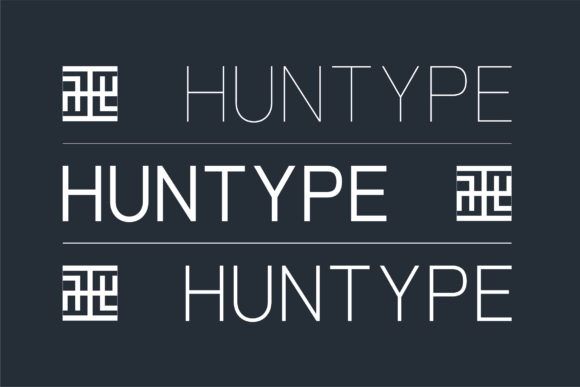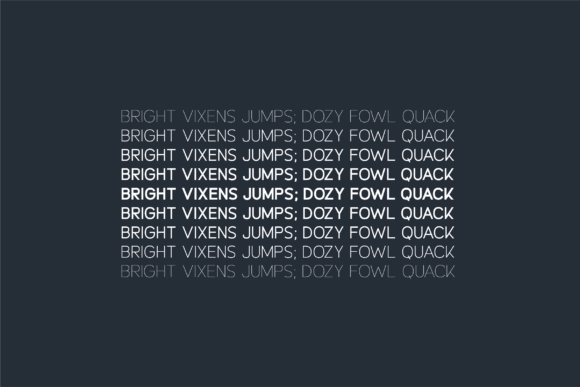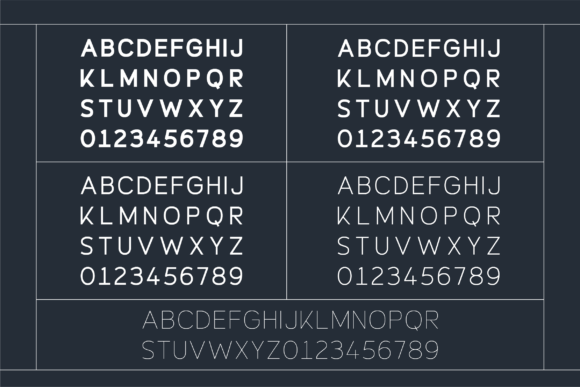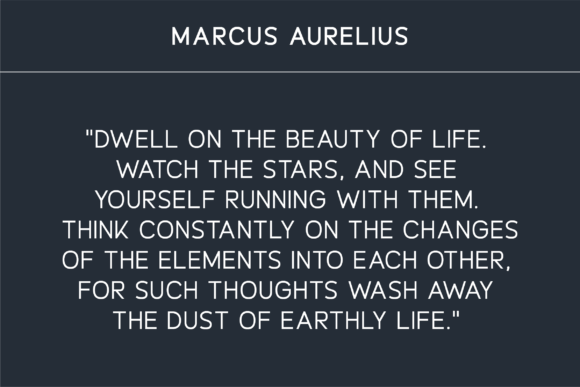
Introducing Deculate: The Ultimate Font Family for Elegance and Versatility
In the world of typography, a font can make all the difference in the success of a design project. It’s not just about conveying a message; it’s about doing so with style, sophistication, and impact. This is where Deculate comes into play—a meticulously crafted font family that epitomizes elegance, modernity, and versatility. With its five distinct weights—thin, light, regular, bold, and black—Deculate offers a wide range of creative possibilities, making it the perfect choice for designers and content creators.
A Font Family of Distinction
Deculate is more than just a font; it’s a tool that can elevate your design to new heights. Its design is characterized by a seamless blend of sophistication and contemporary style, ensuring that your projects will shine with distinction. Whether you’re aiming for a subtle and delicate touch or a bold and impactful statement, Deculate provides the flexibility to achieve your desired aesthetic. This versatility is invaluable for designers who need a font that can adapt to various design requirements, from elegant branding and editorial design to dynamic digital content.
Five Weights for Endless Possibilities
One of the standout features of Deculate is its comprehensive range of weights. The font family includes five distinct styles:
- Thin: Ideal for creating a subtle, delicate look. Perfect for fine print, captions, or when you want to add a touch of elegance without overpowering your content.
- Light: A step up from thin, offering a slightly bolder appearance while still maintaining a refined and understated vibe.
- Regular: The foundation of the Deculate family, providing a balanced and versatile option for everyday use. This weight is great for body text, headings, and where you need clarity and readability.
- Bold: When you need to make a statement, the bold weight of Deculate steps up. It’s strong, yet elegant, making it perfect for headings, titles, and where you want to draw attention.
- Black: The heaviest weight in the Deculate family, ideal for making a significant impact. Use it for dramatic headings, posters, or any design where you want to ensure your message stands out.
Elegance Meets Modernity
Deculate’s design strikes a perfect balance between elegance and modernity. Its clean lines, balanced proportions, and meticulous attention to detail make it a font that feels both contemporary and timeless. This balance ensures that Deculate can be used across a variety of mediums and applications, from digital interfaces and websites to print materials like brochures and magazines.
Perfect for Designers and Content Creators
For designers and content creators, finding a font that meets all their needs can be a challenge. Deculate solves this problem by offering a single font family that can cover a wide range of design requirements. Its versatility, elegance, and modern appeal make it an excellent choice for:
- Branding: Create a lasting impression with a font that communicates sophistication and professionalism.
- Editorial Design: Enhance the readability and aesthetic of your publications with a font that’s designed for clarity and beauty.
- Digital Content: Elevate your website, blog, or social media content with a modern and engaging typography.
Deculate is not just a font family; it’s a design solution that offers elegance, versatility, and impact. With its range of five distinct weights, it provides designers and content creators with the tools they need to bring their visions to life. Whether you’re working on a branding project, editorial design, or digital content, Deculate ensures that your typography will be both beautiful and effective. Make the switch to Deculate today and discover a new world of typographic possibilities.